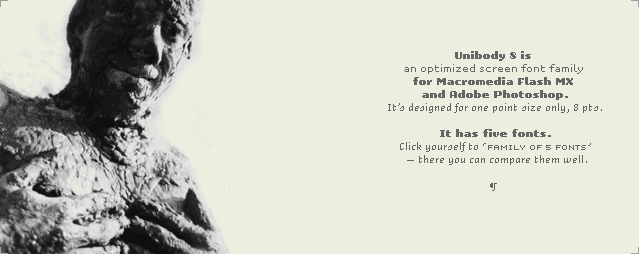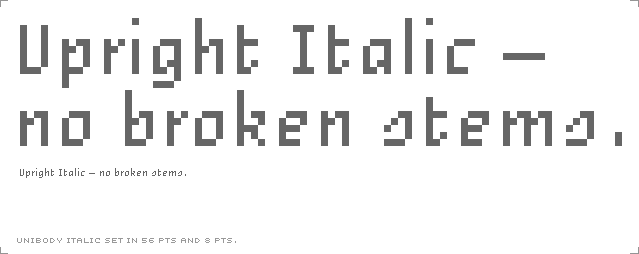
Optimize your screen performance with Unibody
As you probably know, the computer screen consists of very tiny squares called pixels. In case you need pixel perfect typography at just 8 pts, Unibody is your friend.
We developed Unibody 8 in case you don’t want anti-aliasing from your computer. Unibody is an optimized screen font family for screen applications (like Adobe PhotoShop and those who still remember Macromedia Flash MX might also like it). It will remain aliased at a size of 8 pts, with other words it gives a crisp pixel image.
We didn't force the type to do anything other than what's naturally possible
with this basic 8 pixel grid. For example, the italic is upright (see sample
below) to avoid broken diagonal stems. We also decided to give a width of
two pixels for most of the letter spaces. Quite often this space is only one
pixel, and that can force letters to melt into each other on poor monitors
or at lower resolutions.
Poor screens still need good typography!